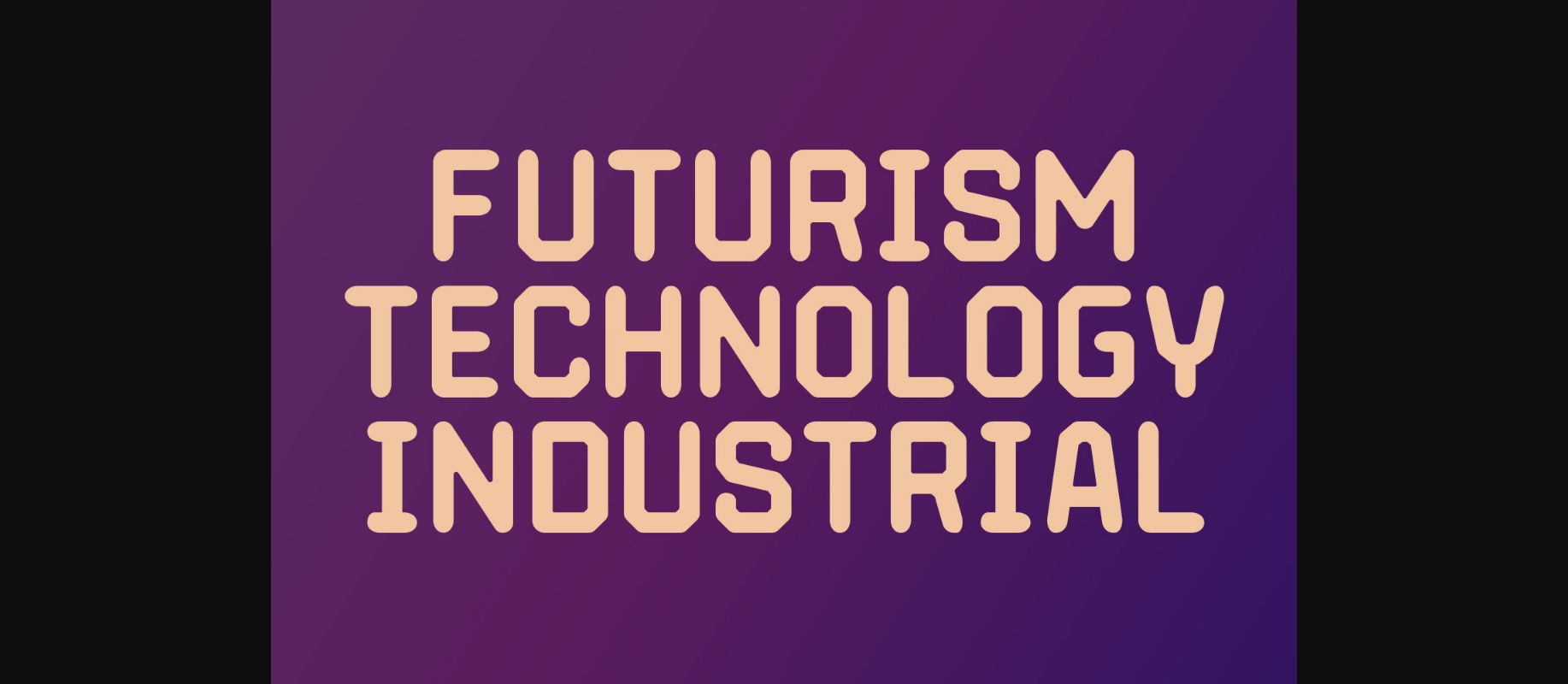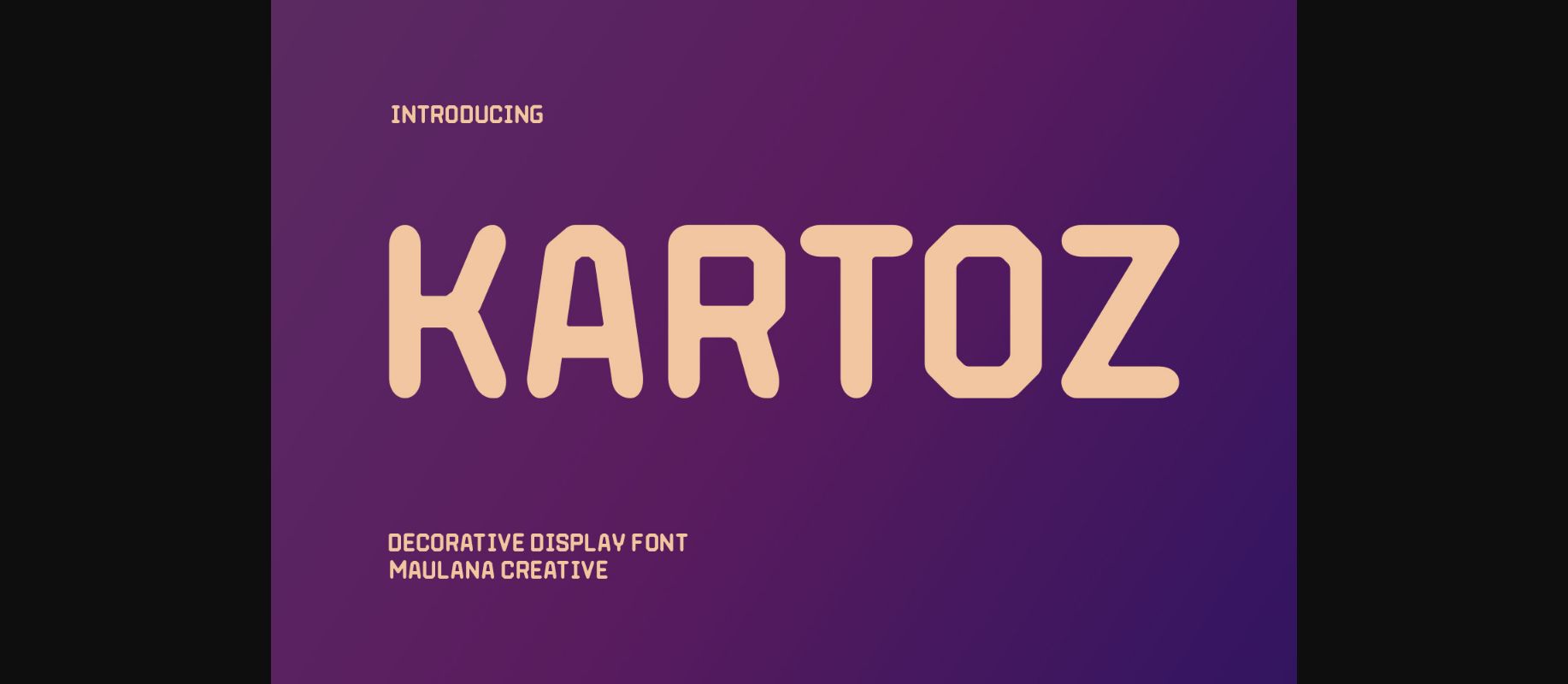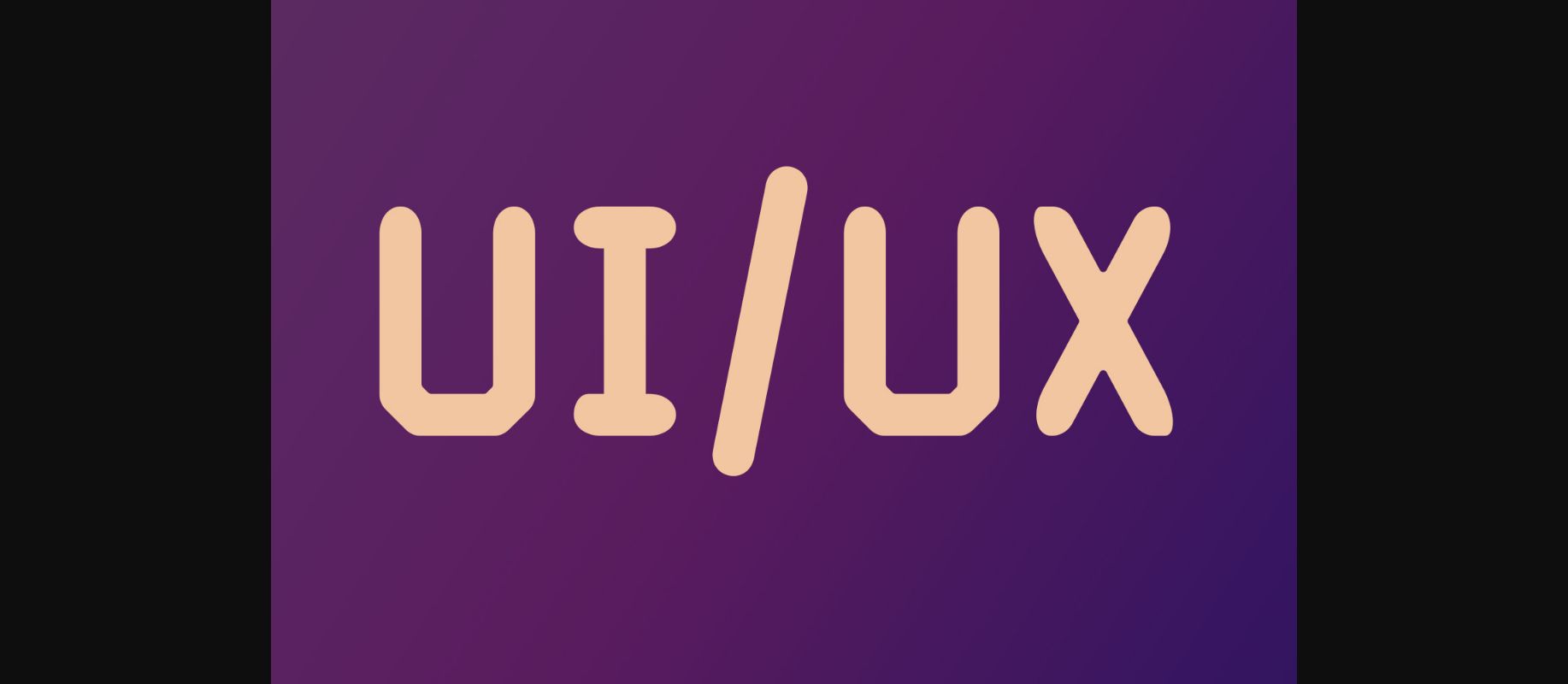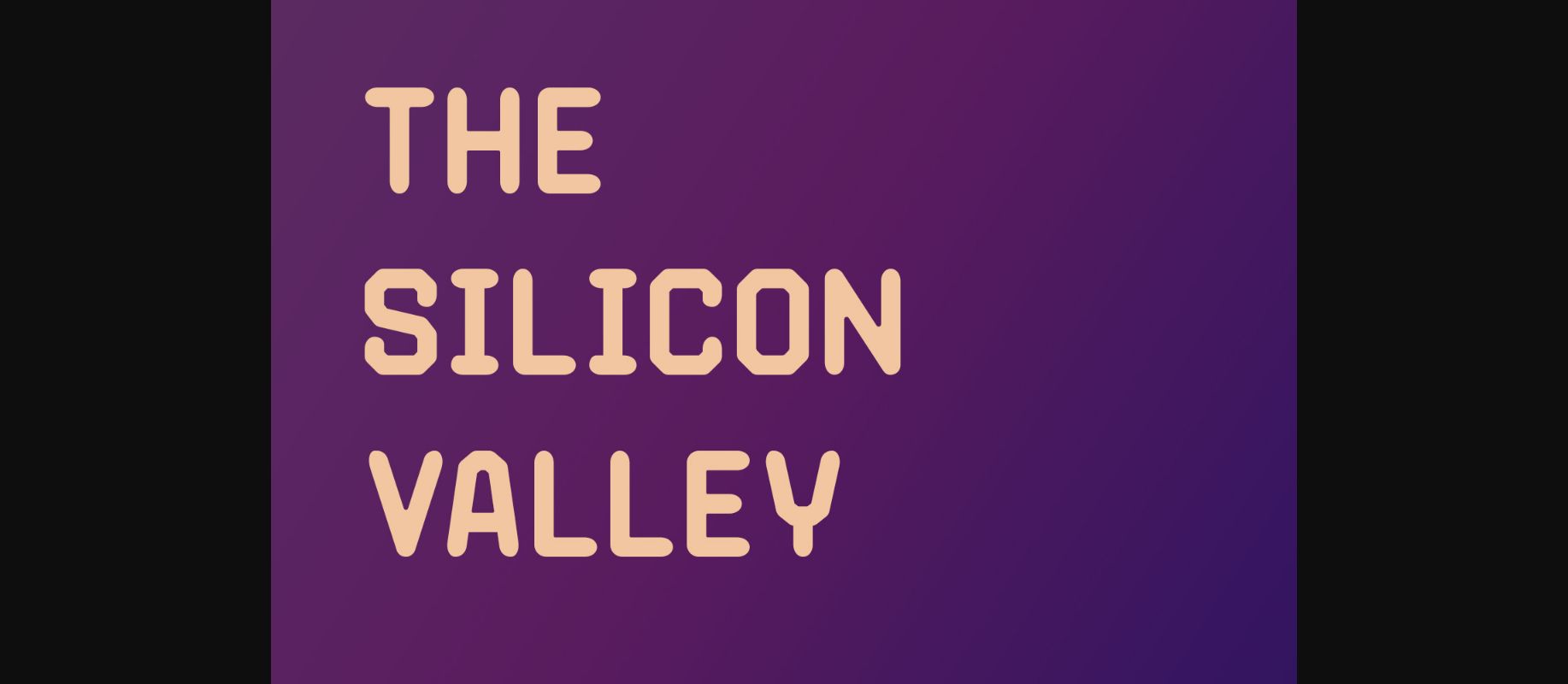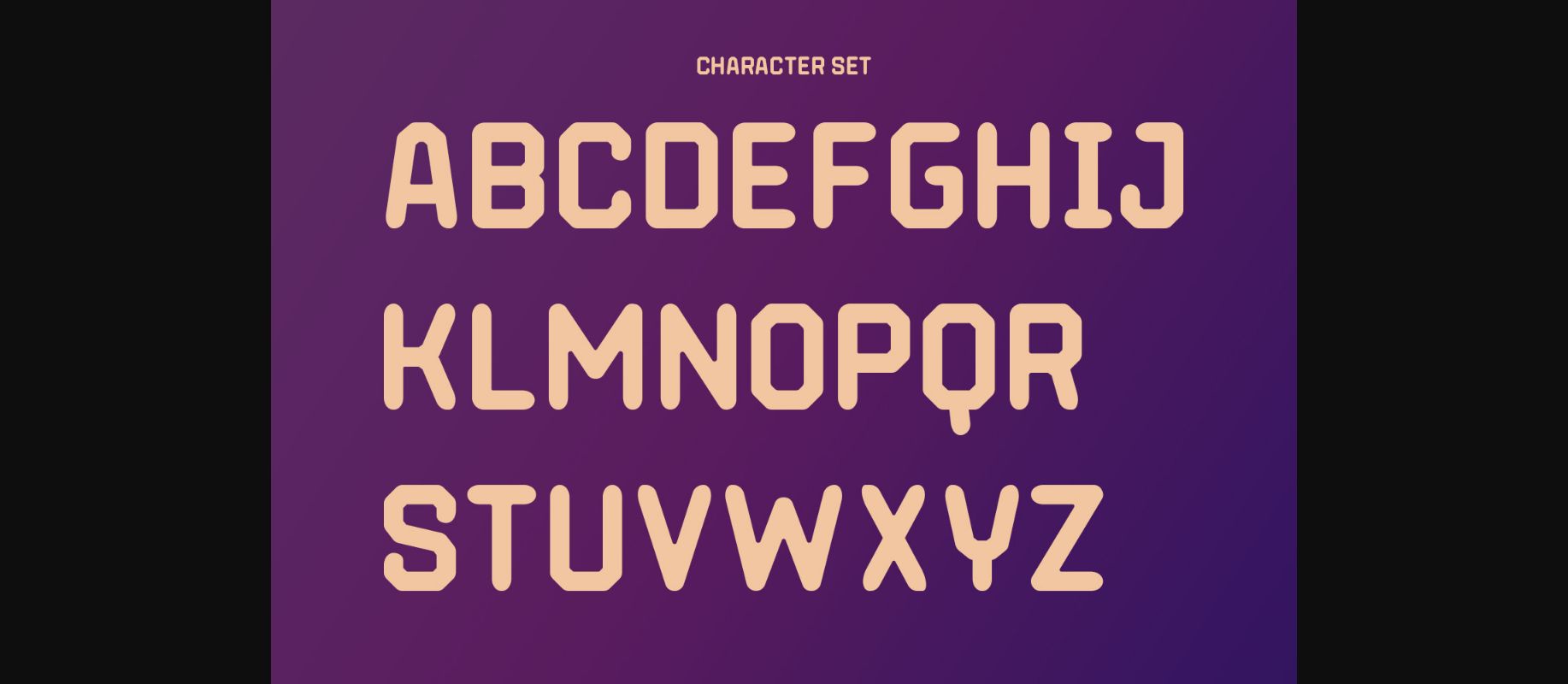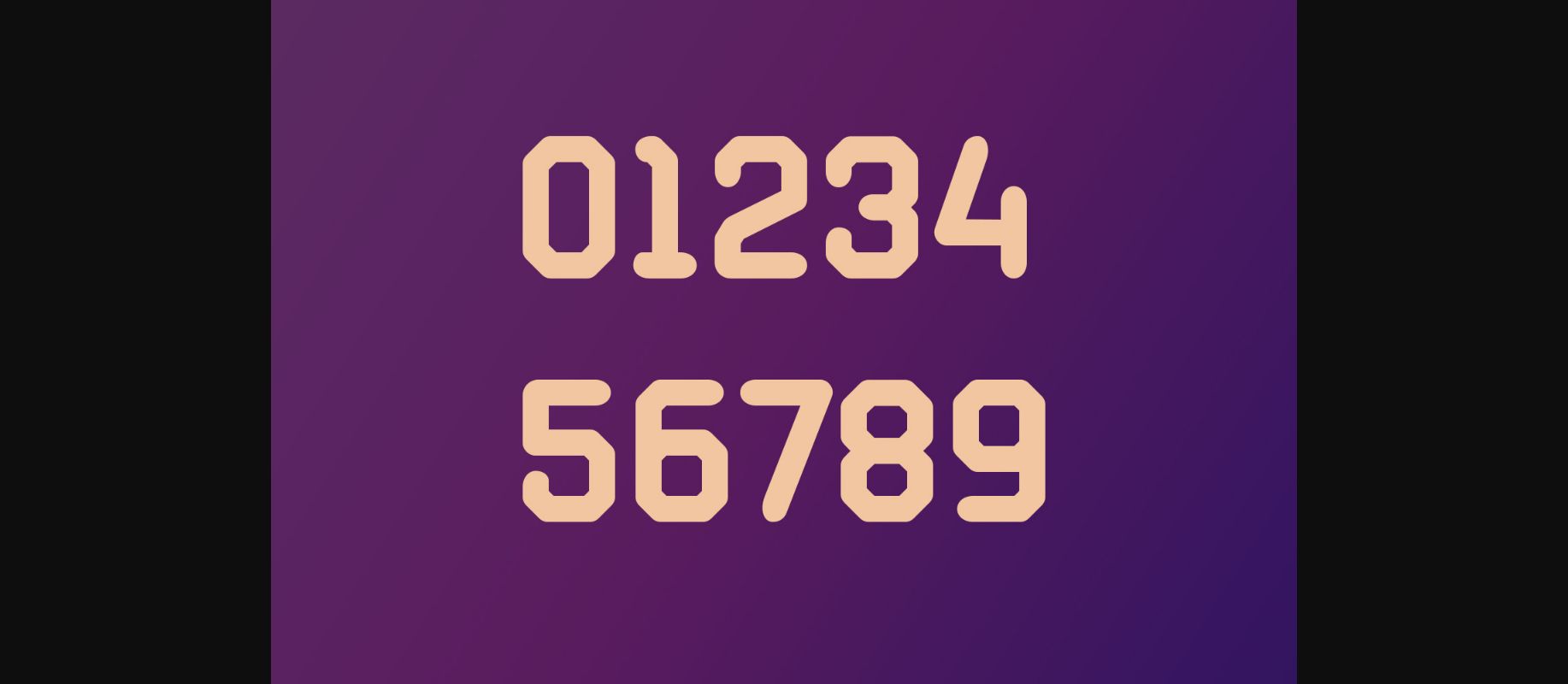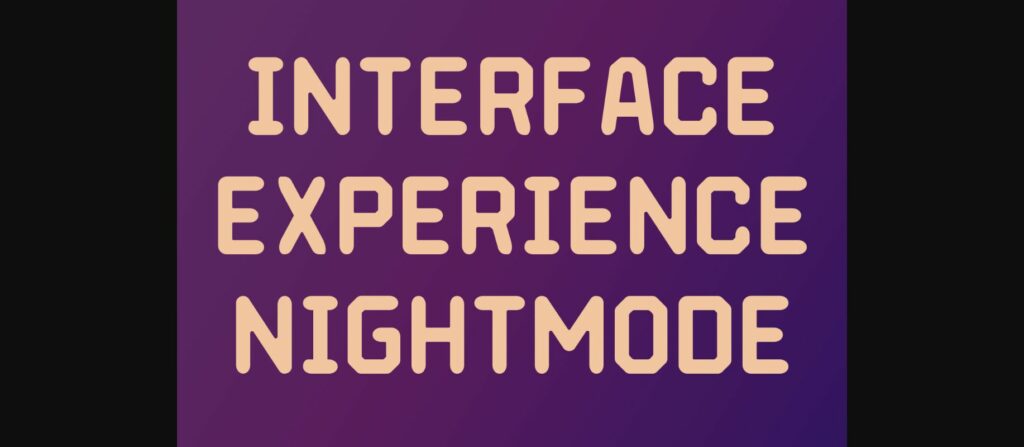
Kartoz Font
About Kartoz Font
Kartoz is a stunning and modern display font that commands attention. With its bold lines and unique shapes, this font is perfect for conveying a sense of power and elegance. Whether it’s for luxury branding, editorial design, or product packaging, “Kartoz” will make a bold and unforgettable statement.